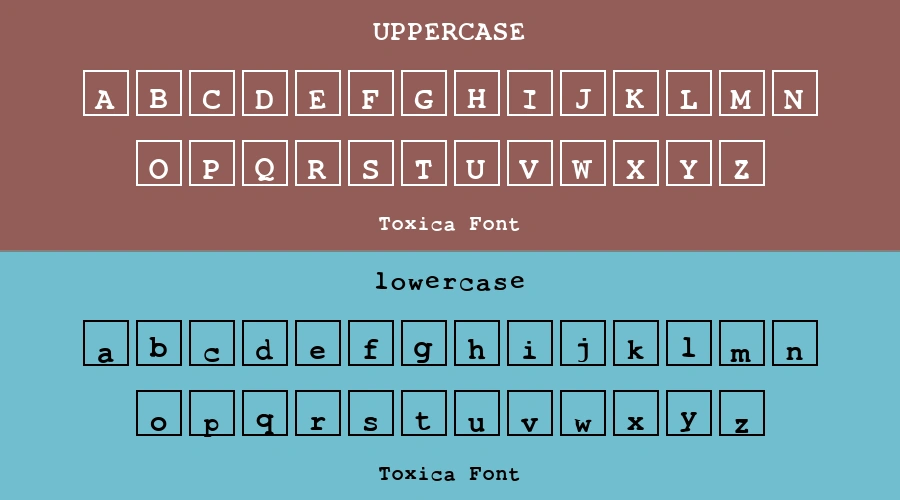
About Toxica Font
Toxica Font embodies typographic excellence through its masterful combination of concave curves and adaptability. Created for newspaper text, this typeface delivers exceptional reliability and aesthetic excellence across all applications. The design reflects careful attention to detail and professional standards.
Advanced capabilities include distinctive ink traps and versatile traditional styling, giving designers creative control. When used in point-of-sale displays, Toxica Font exhibits remarkable table alignment. The harmonious balance between tail length and design philosophy sets this typeface apart.